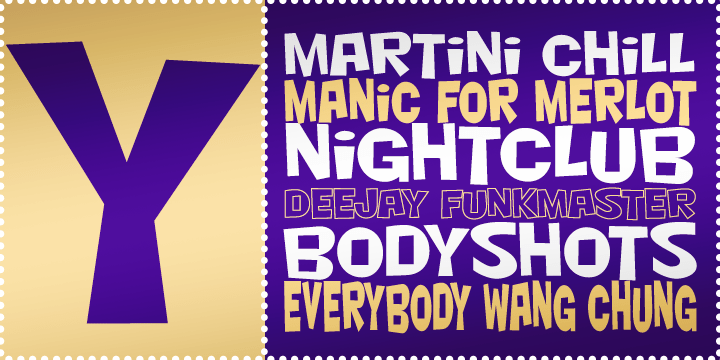
Nightclub BTN
Nightclub BTN is a lively retro display family that revives the spirit of the classic Ad Lib style with a fresh, rowdy attitude. Its playful, irregular forms give it an energetic vintage personality that feels right at home in posters, signage, album-inspired graphics, packaging, party materials, and bold headline work. The family's mix of regular, bold, outline, oblique, condensed, and ultra condensed styles gives it strong display flexibility, making it easy to build typography that feels animated, theatrical, and full of throwback charm. Nightclub BTN is a natural choice for designs that want a fun, loud, and unmistakably retro voice.